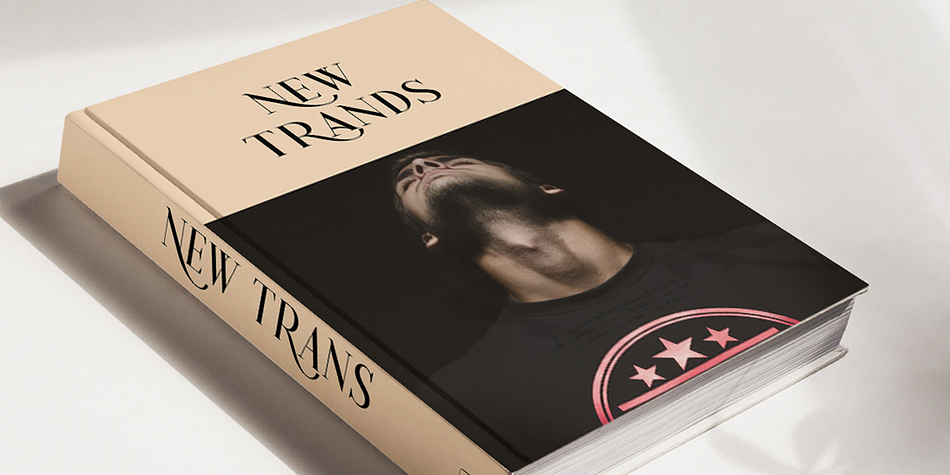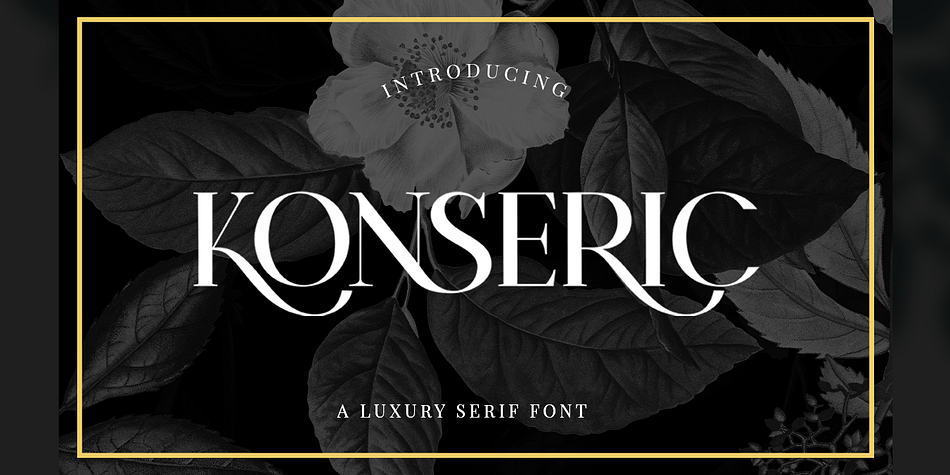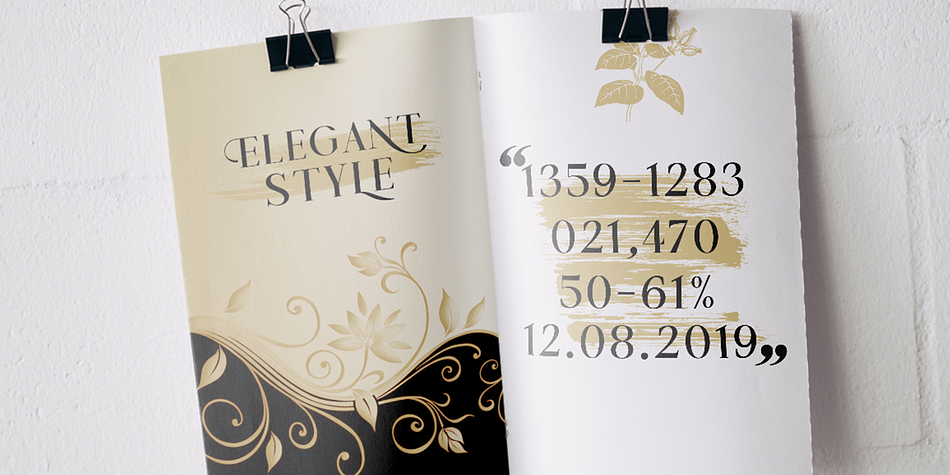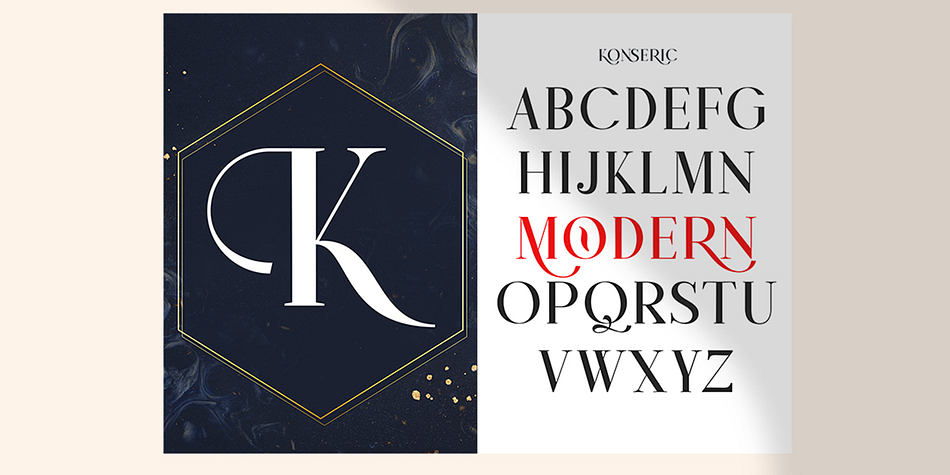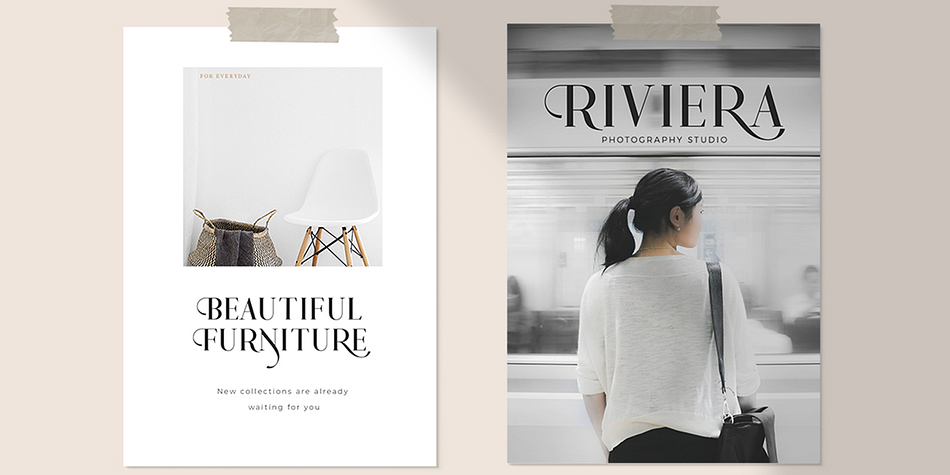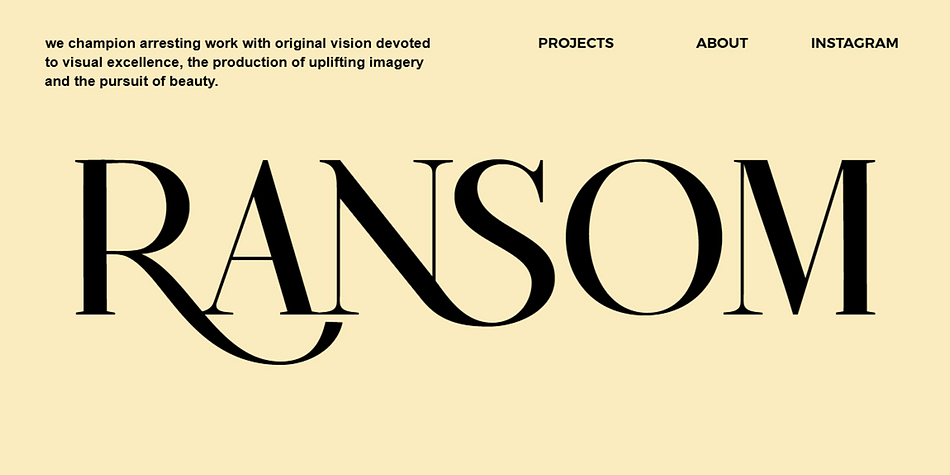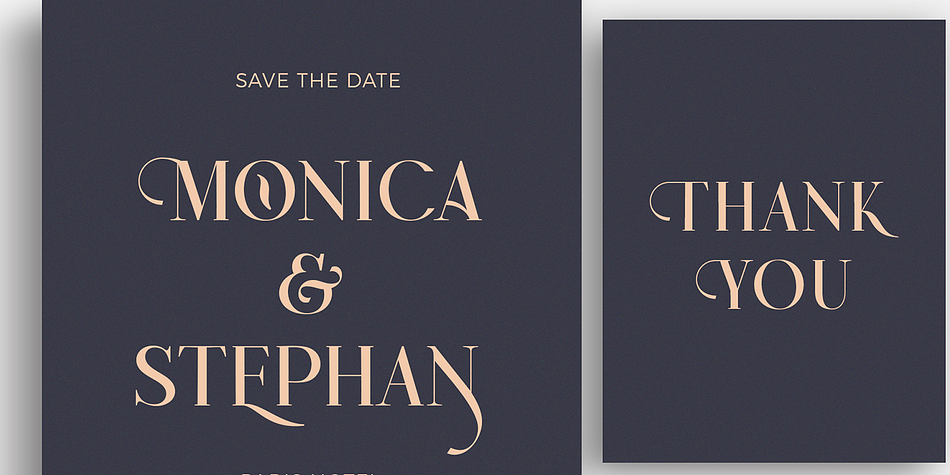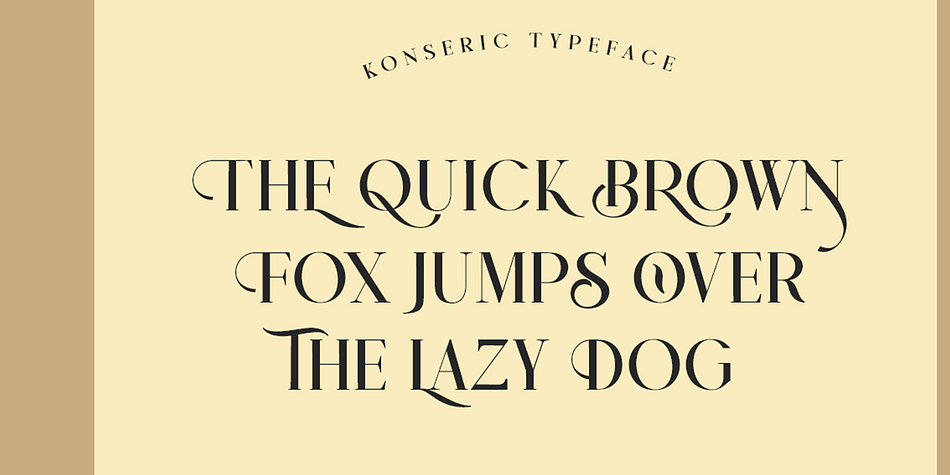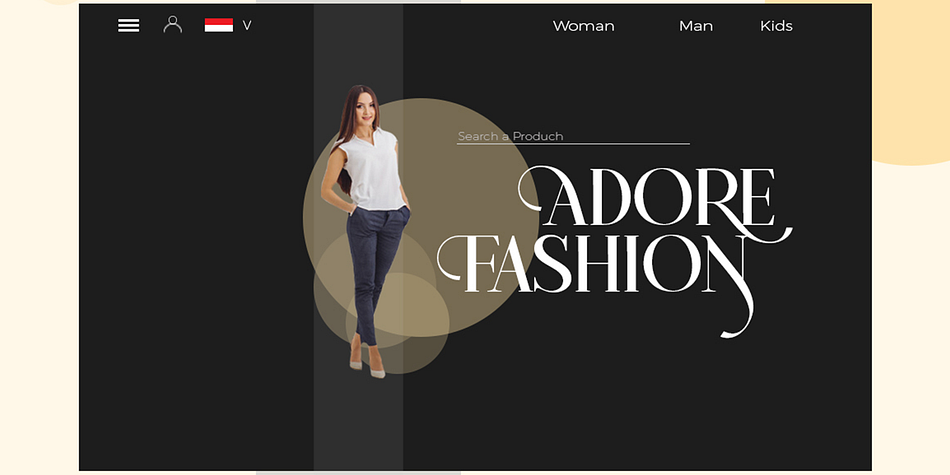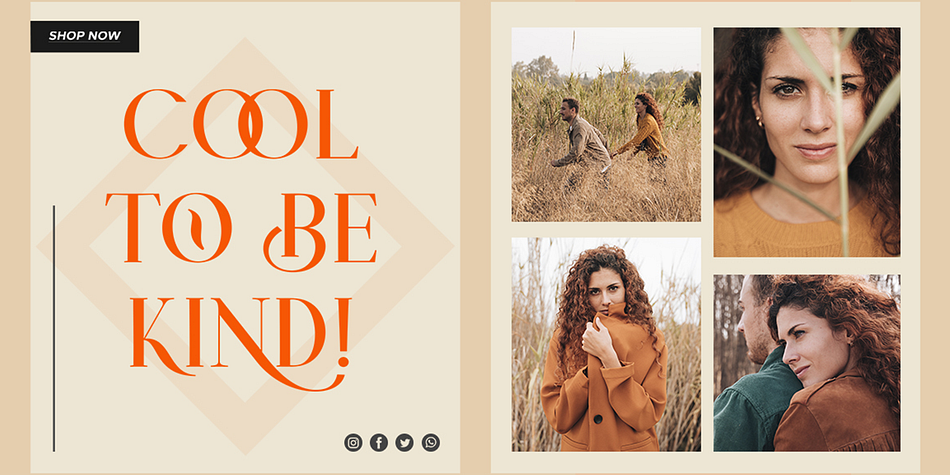
Designed by Indie Type, Konseric | Luxury Serif Font is a serif font published by Picatype Studio.
Konseric is an elegant serif font of a classic style that has been modernized with unique curves and cut-ins making it one of the most memorable top fonts on the market. It represents vintage aesthetics in a modern and minimalist way. Fonts include special uppercase letters, alternative characters and beautiful ties and multilingual support. This versatile font can be used for wordmark logos, mastheads, pull quotes & monograms that show feminine and masculine qualities, elegant packaging or invitation cards and almost all creative designs.